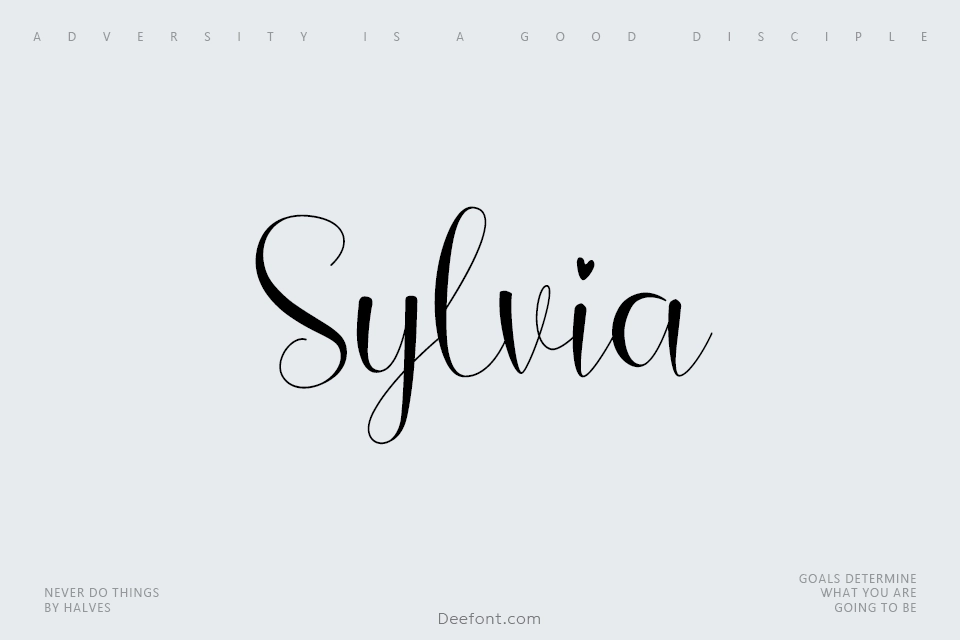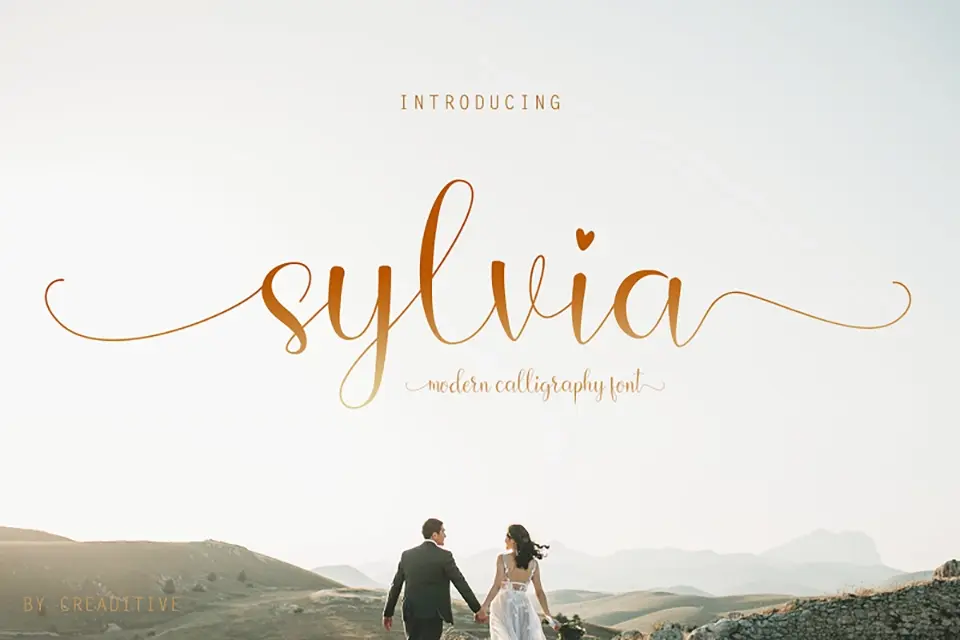
Sylvia Font
Sylvia is an elegant and relaxed handwritten script typeface that brings sophistication to your creative projects. With flowing calligraphy-inspired strokes and gentle letterforms, this charming font combines romantic elegance with modern versatility. Perfect for wedding invitations, branding materials, greeting cards, and decorative designs, Sylvia adds a touch of warmth and personality to any project while maintaining legibility and visual appeal.
Designed by:Creaditive Design